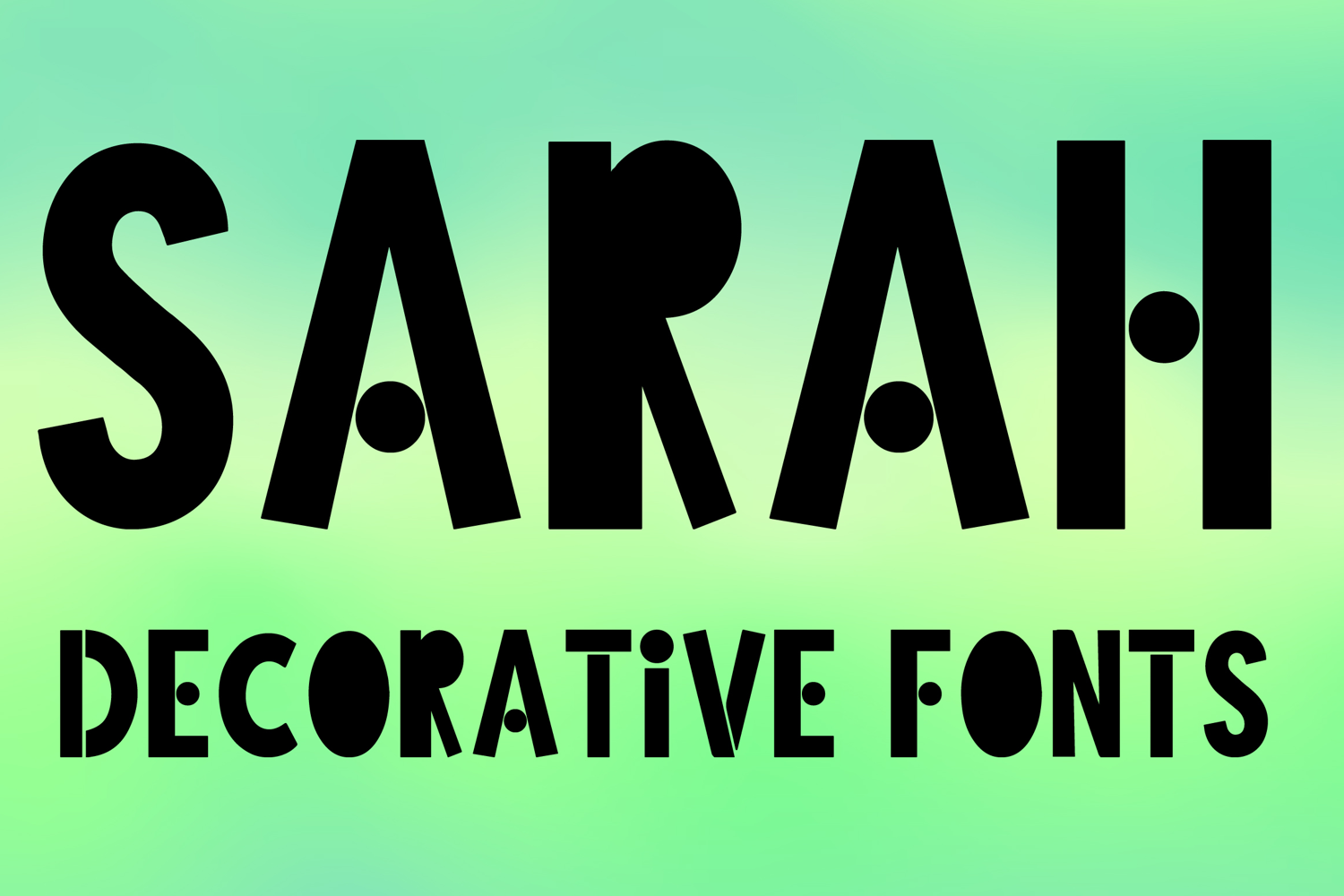
SARAH
SARAH-Regular
SARAH is a bold decorative display font with a modern geometric style and playful artistic character. Its uppercase letterforms feature thick strong strokes, sharp angular shapes, and distinctive circular cut details that create a stylish, creative, and eye-catching look. Designed with uppercase letters A–Z and numbers 0–9, SARAH is perfect for branding, posters, packaging, logos, invitations, and social media graphics that need a bold and memorable statement.